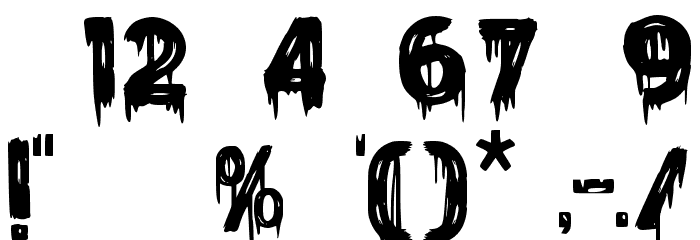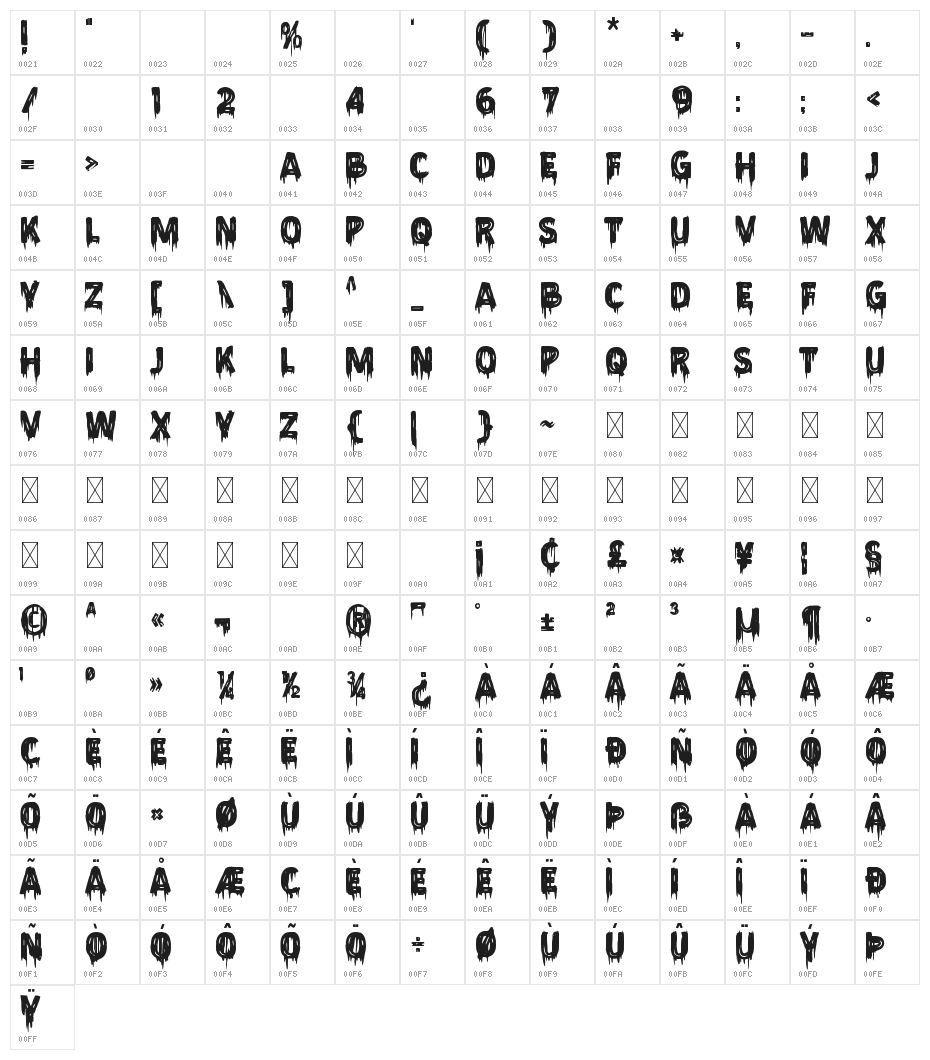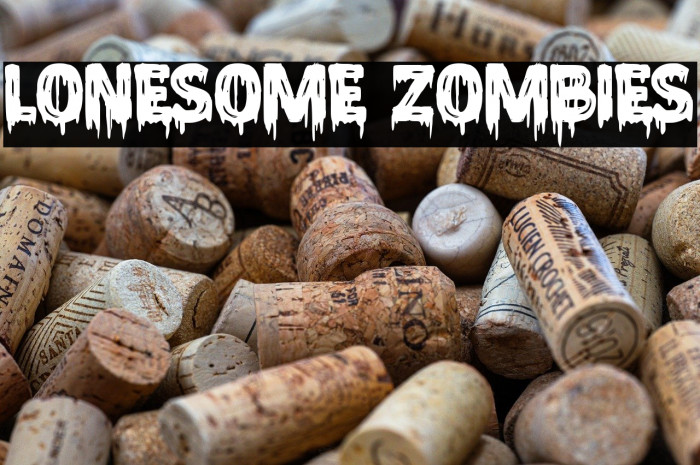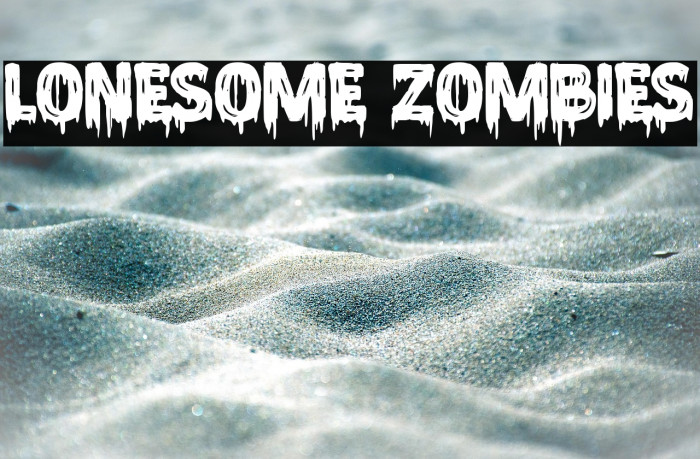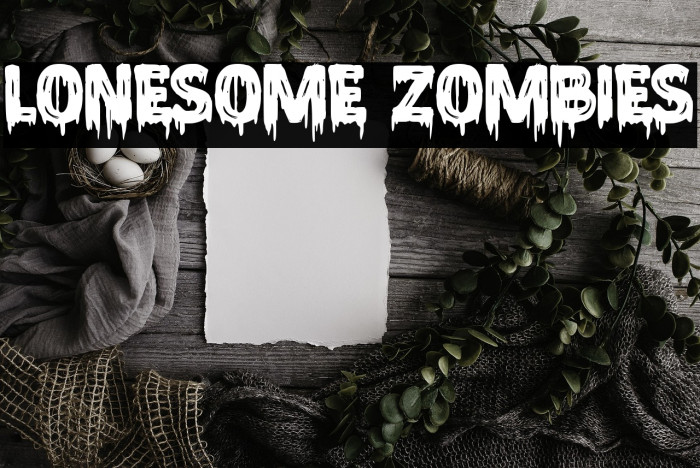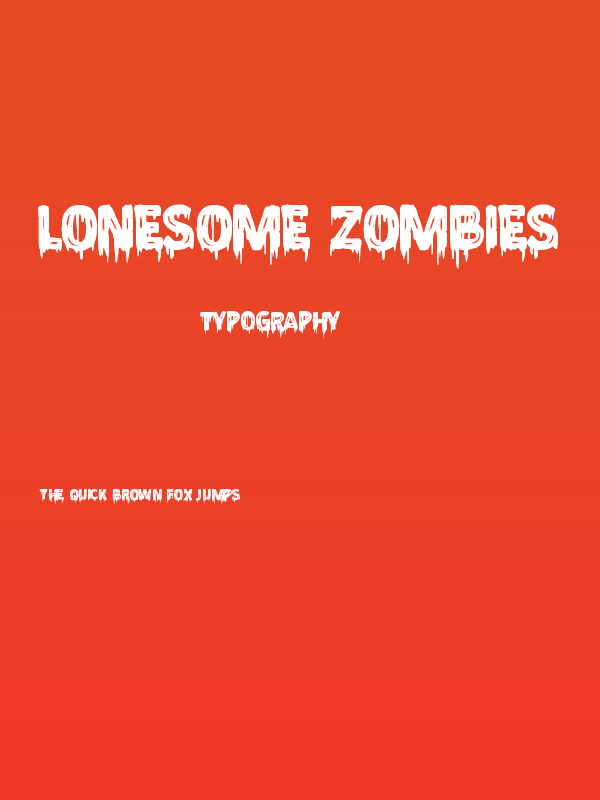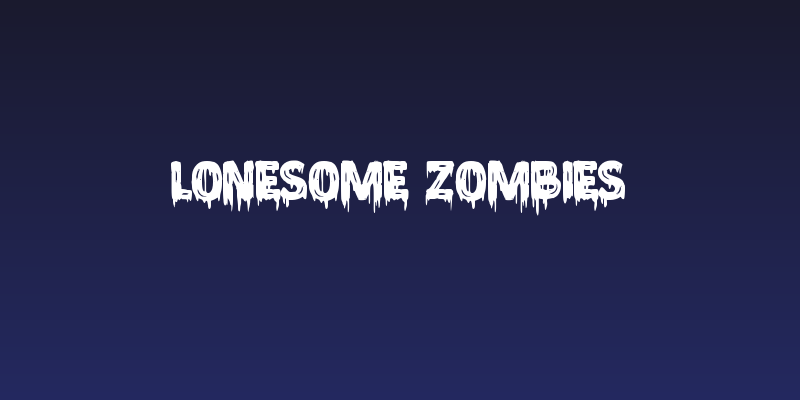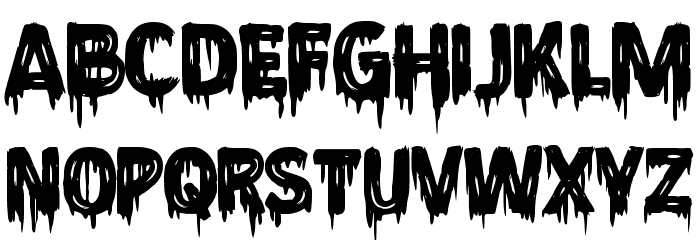
Lonesome Zombies Font
Lonesome Zombies Description
This font features a bold and dramatic style with a dripping effect that gives it a horror or Halloween-themed appearance. The characters are uppercase and lowercase letters, numbers, and special symbols, all designed with a consistent dripping motif that suggests a melting or bleeding effect. The strokes are thick and uneven, adding to the eerie and unsettling aesthetic. This font is perfect for creating a spooky atmosphere in designs, making it ideal for themed events, posters, or any project requiring a touch of the macabre.
Proposed ProjectsIdeal for Halloween posters, horror movie titles, themed event invitations, and any design needing a spooky, dramatic flair.